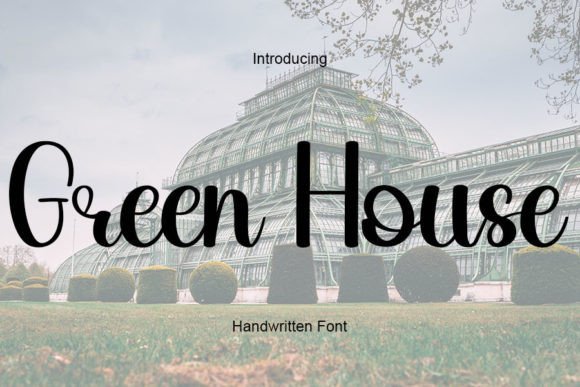
Introducing Green House Font, the captivating script font that will infuse your designs with a touch of elegance. Its meticulously crafted characters intertwine with graceful curves, exuding a timeless charm. Unleash your creativity and let Green House elevate your projects to new heights.
Indulge in the versatility of Green House Font. Its flowing lines and delicate serifs bring a touch of sophistication to invitations, branding, social media posts, and beyond. Whether you're a seasoned designer or just starting your creative journey, Green House's user-friendly nature makes it a joy to work with.
Immerse yourself in the allure of Green House Font. Its elegant strokes and flowing curves create a symphony of visual harmony, evoking a sense of wonder and inspiration. Allow Green House to transform your designs into captivating masterpieces, leaving an unforgettable impression on your audience.
Crafted by the renowned Putrasyahreza00, Green House Font is a testament to the passion for creating extraordinary fonts. Its unique style and meticulous attention to detail are evident in every letterform, promising to add a touch of magic to your creative endeavors.